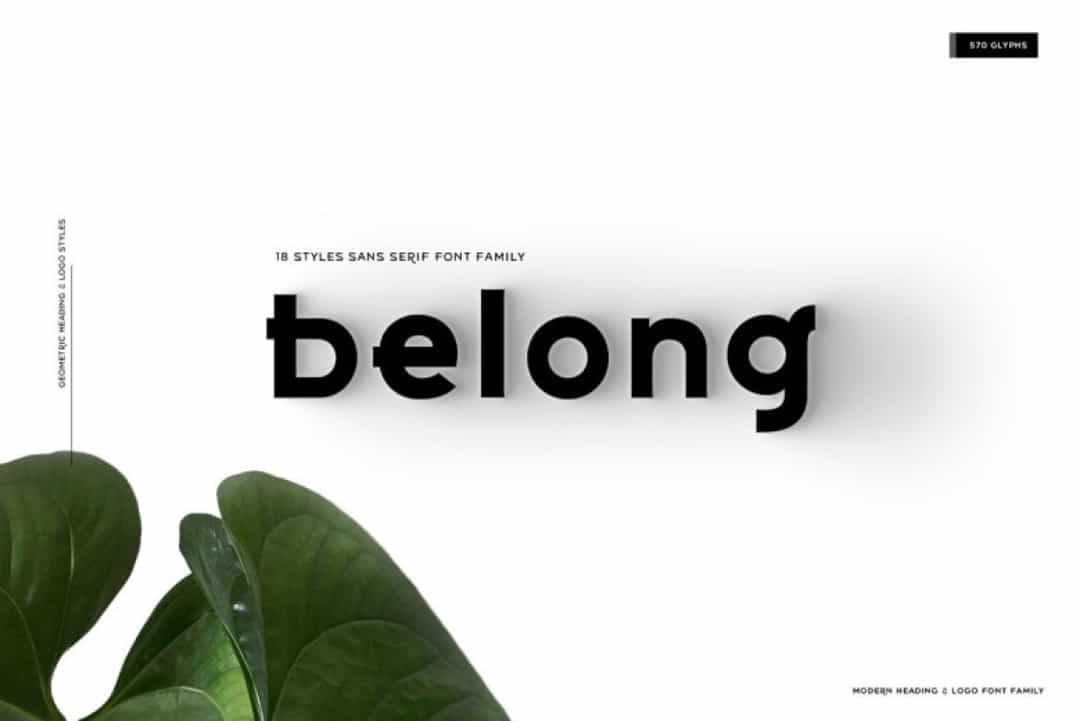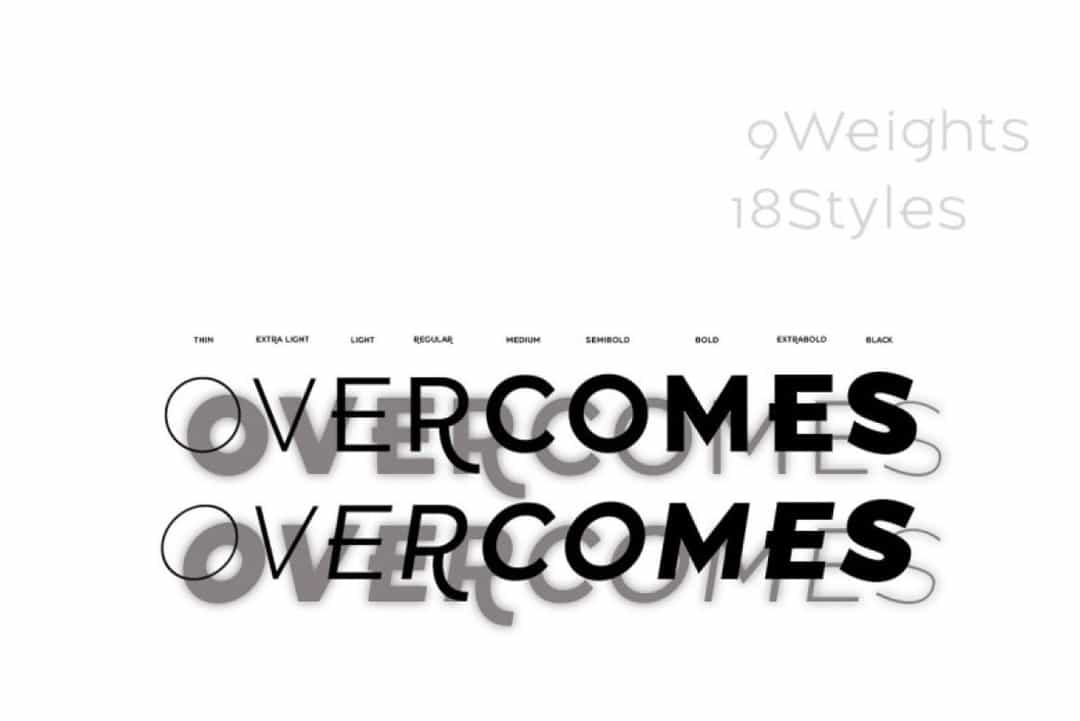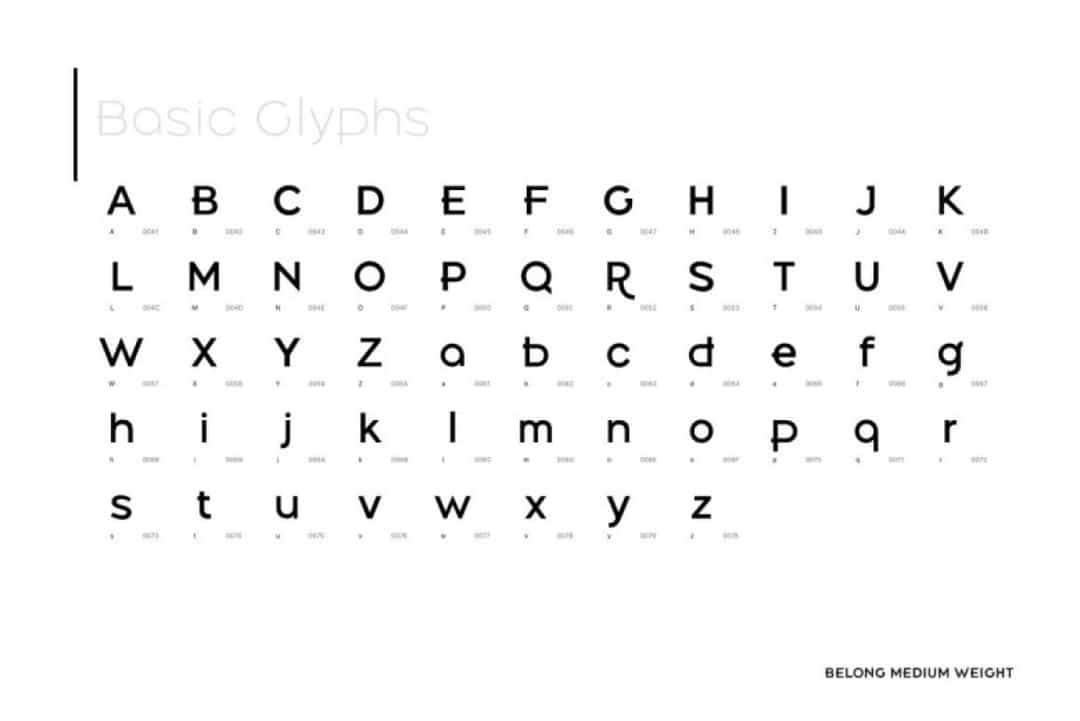
Belong Sans Font embodies both individuality and readability, drawing from different styles that converge into Sans Serif system structures to produce distinctive font families like Belong Logo and Heading Font Family. Their fonts incorporate harmonious intersections of different acclimations or deviations with these fonts to achieve maximum effectiveness and readability.